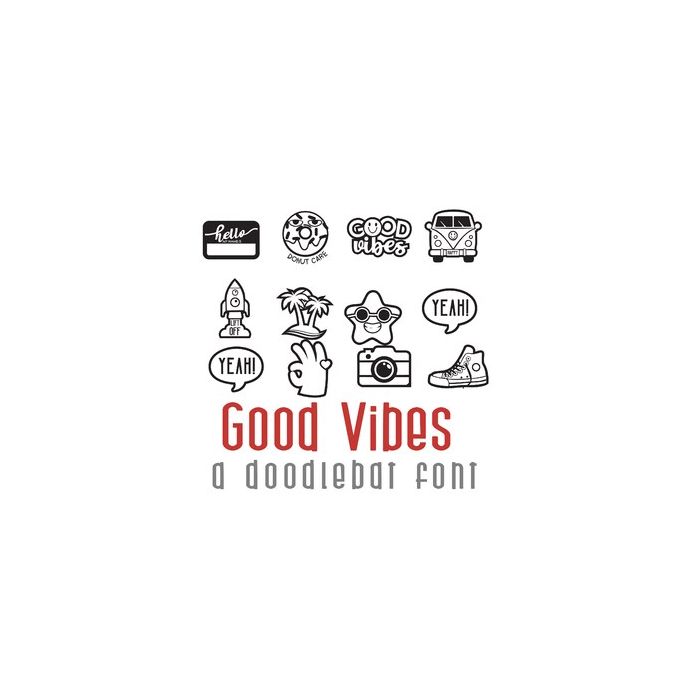
Good Vibes Doodlebat Font
This adorable doodlebat fonts features 26 sticker-style images perfect for cards, crafts, gifts, planner stickers, scrapbook pages, decor and more!